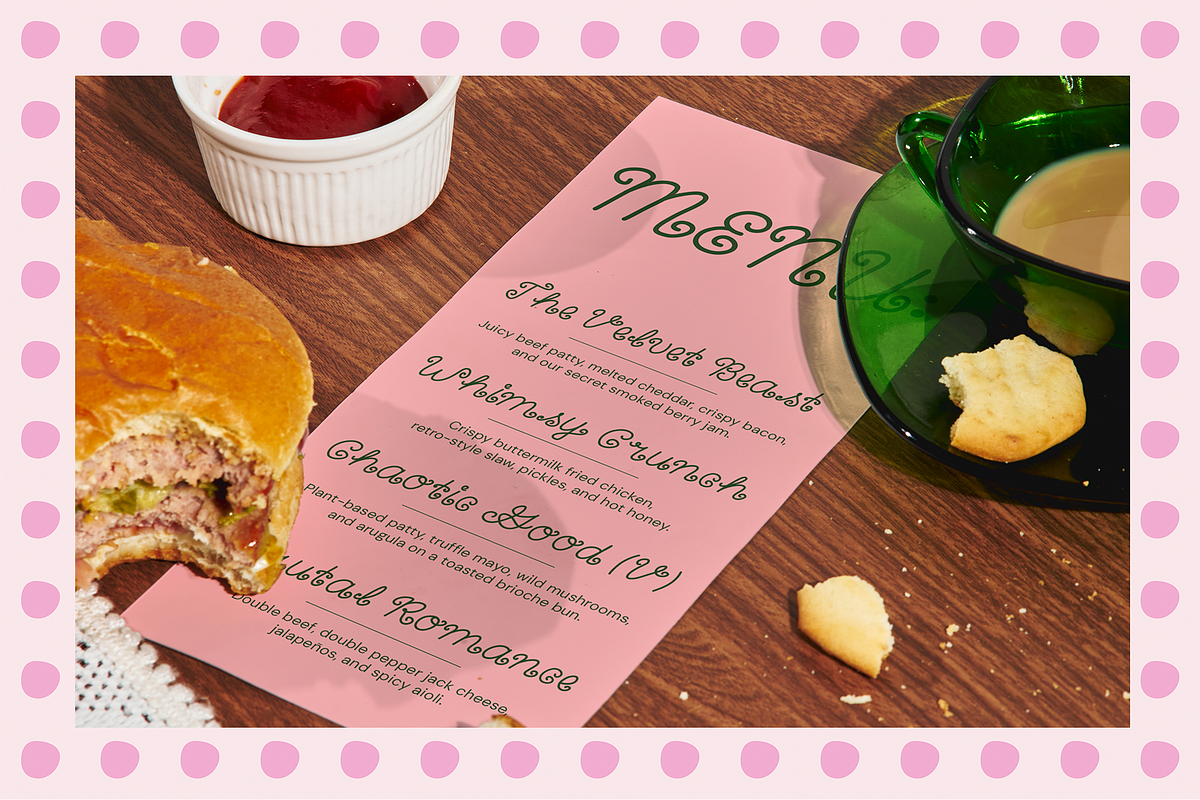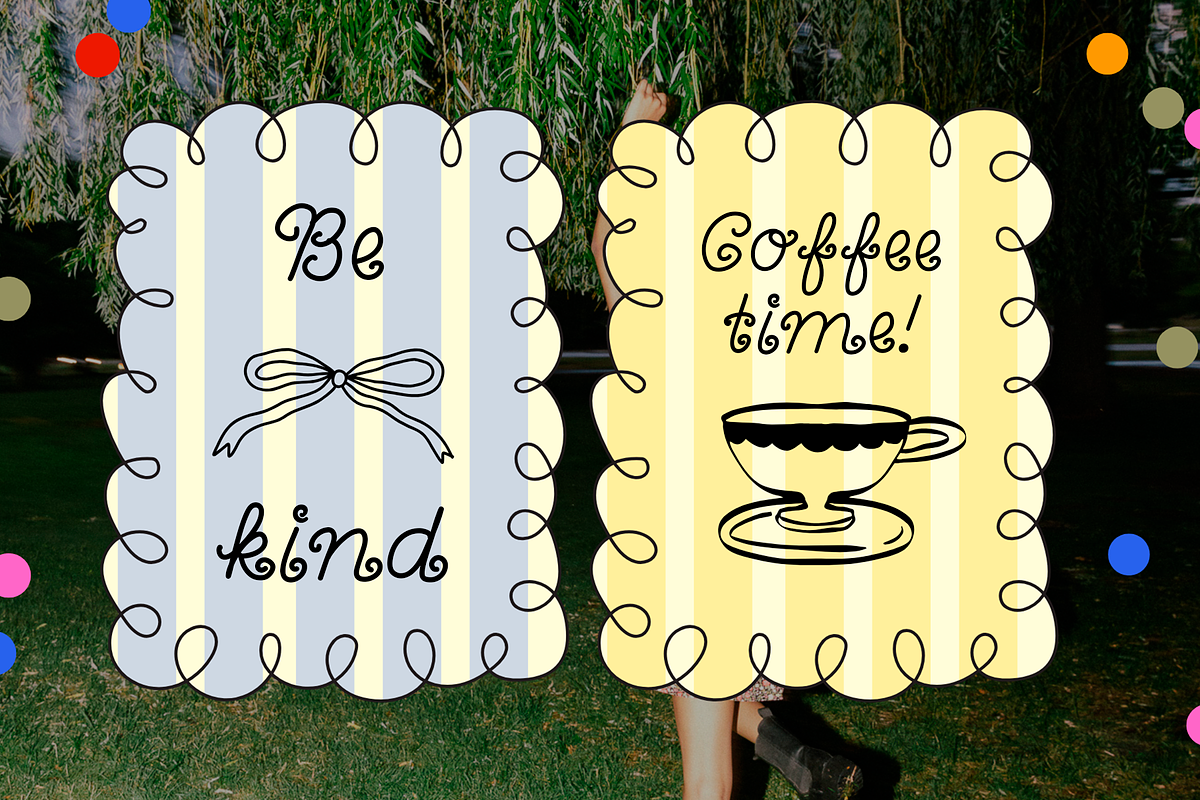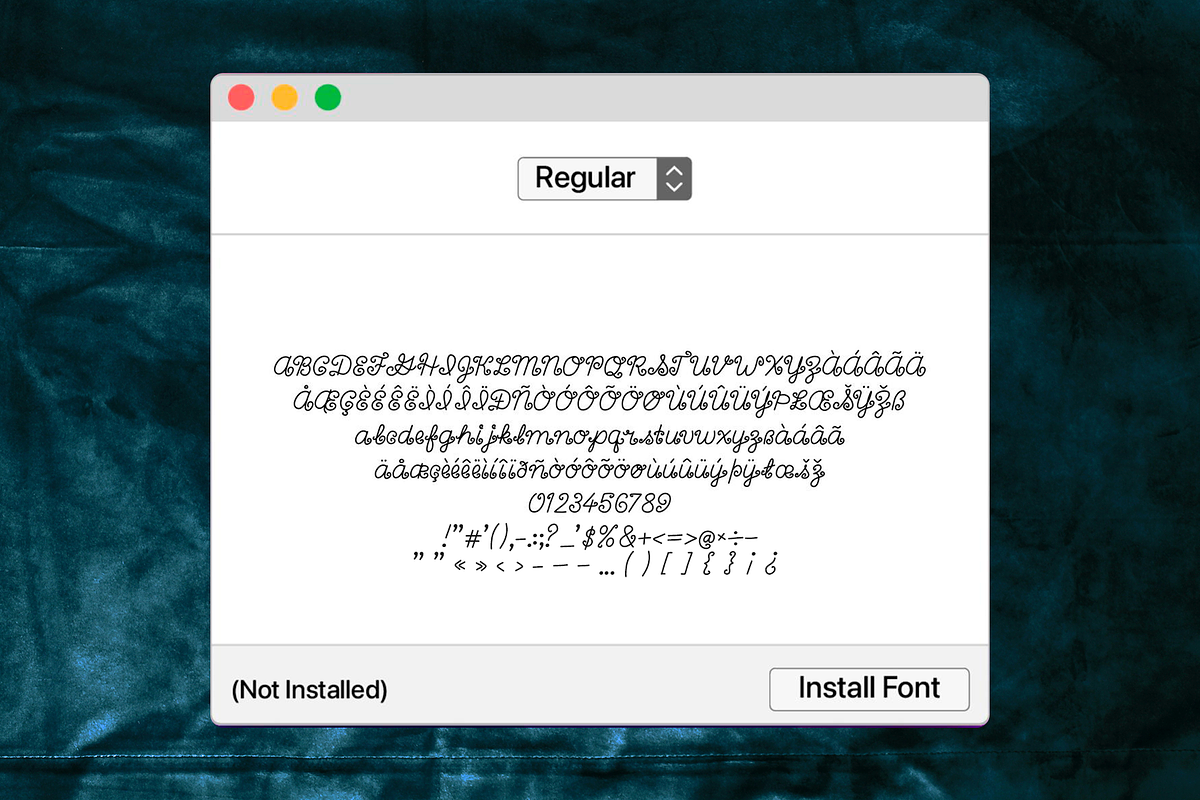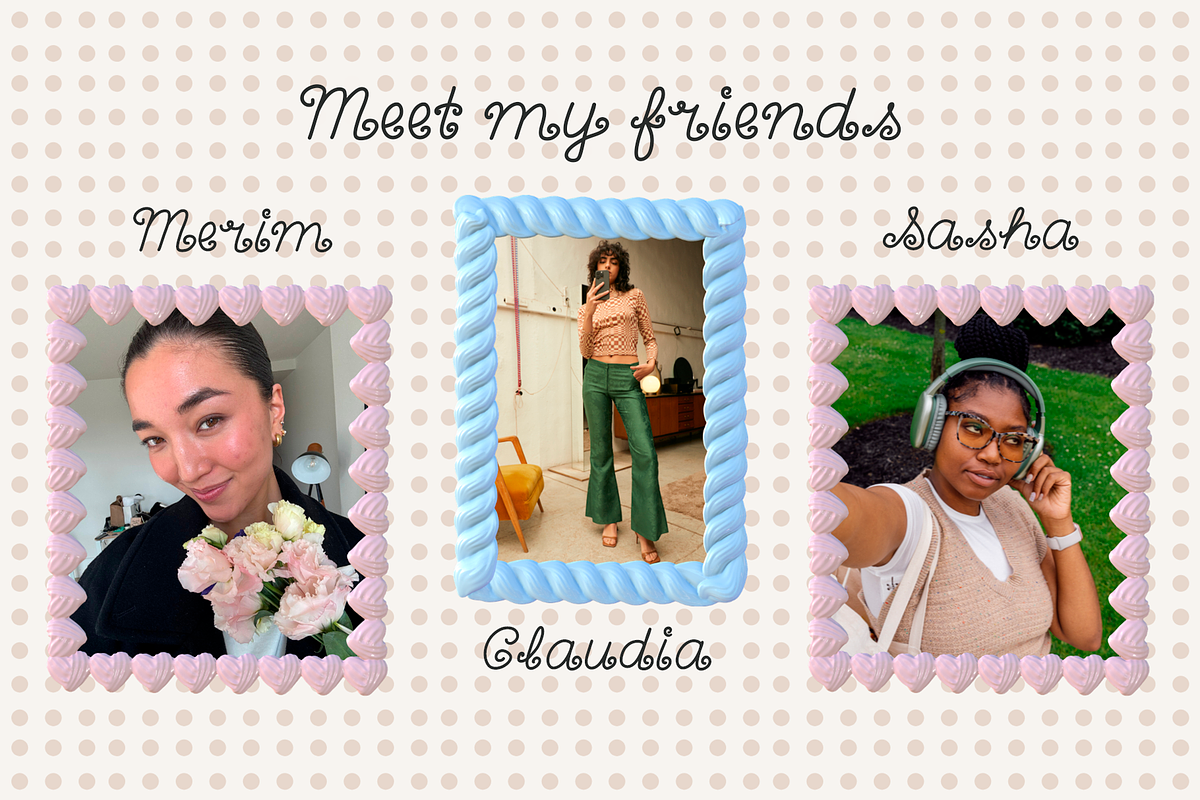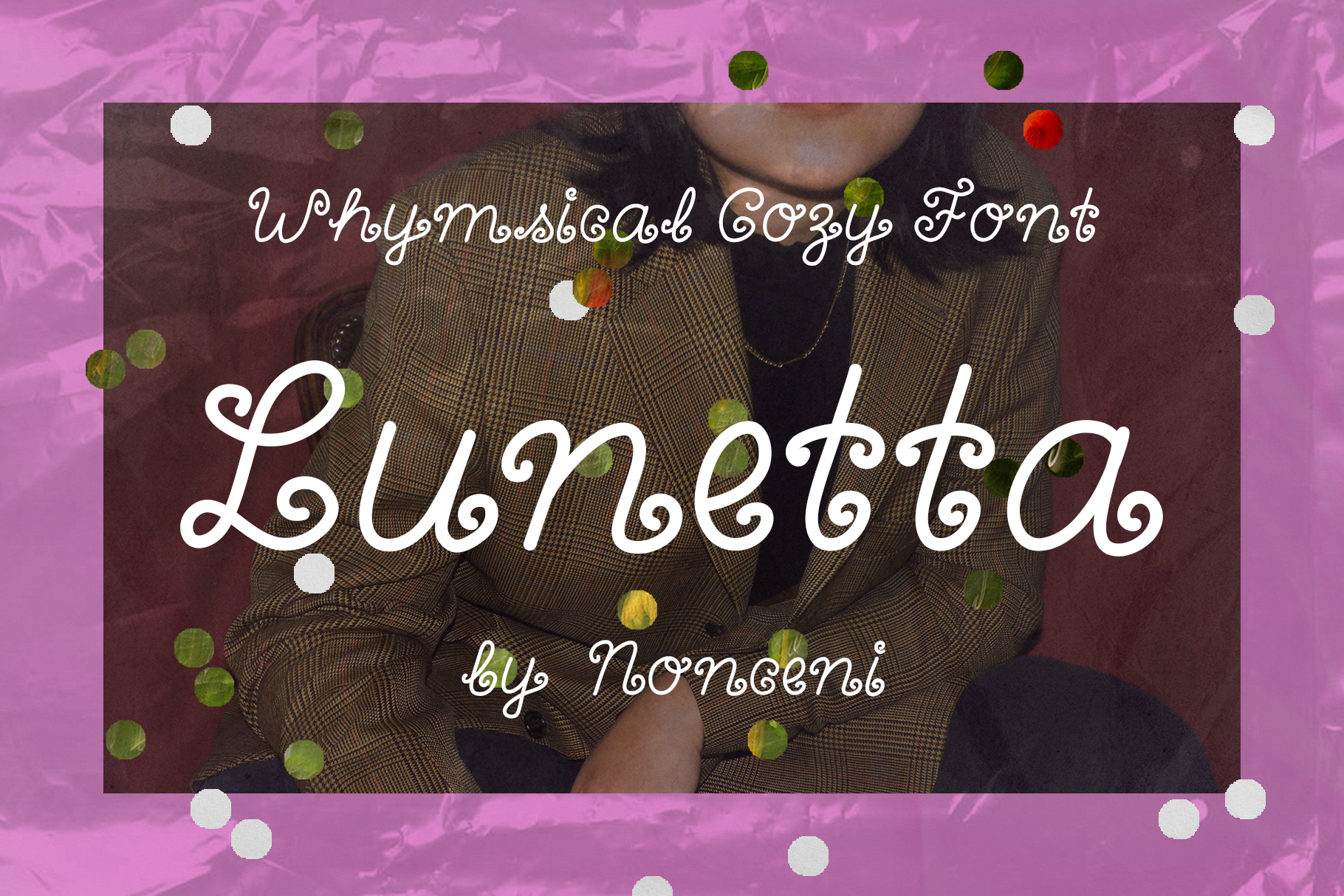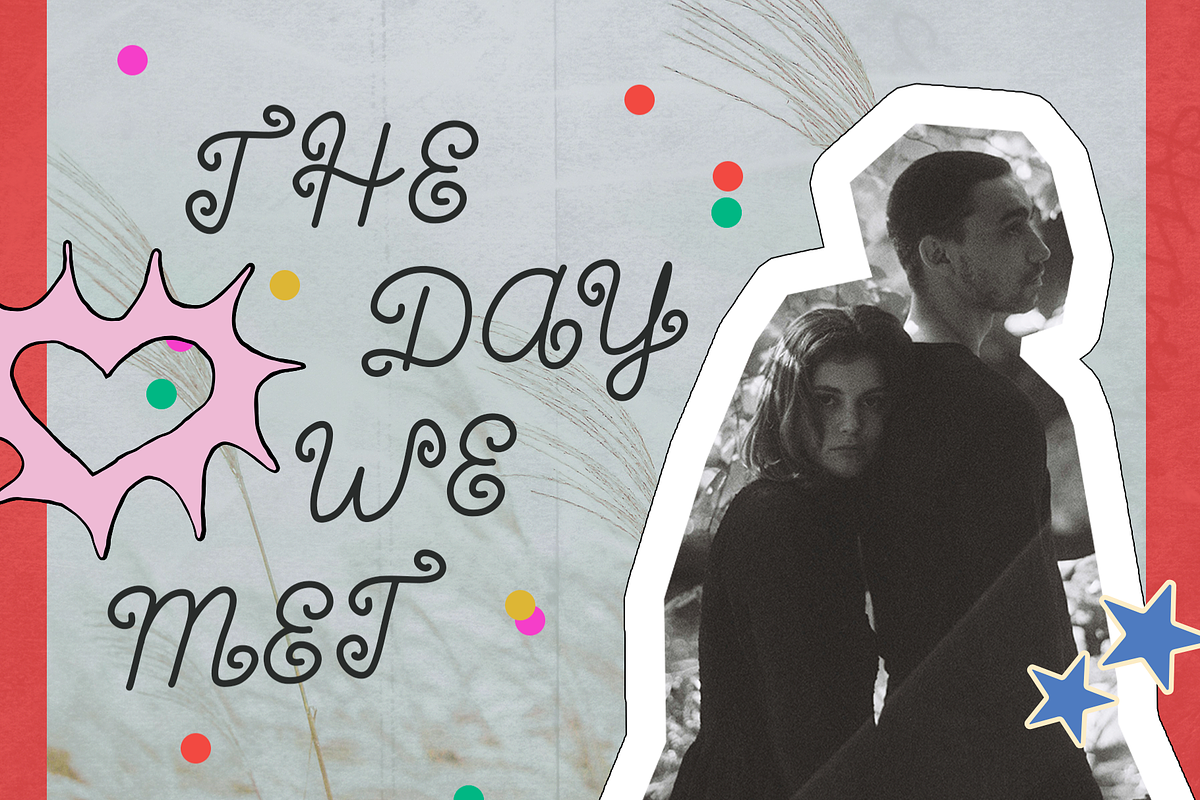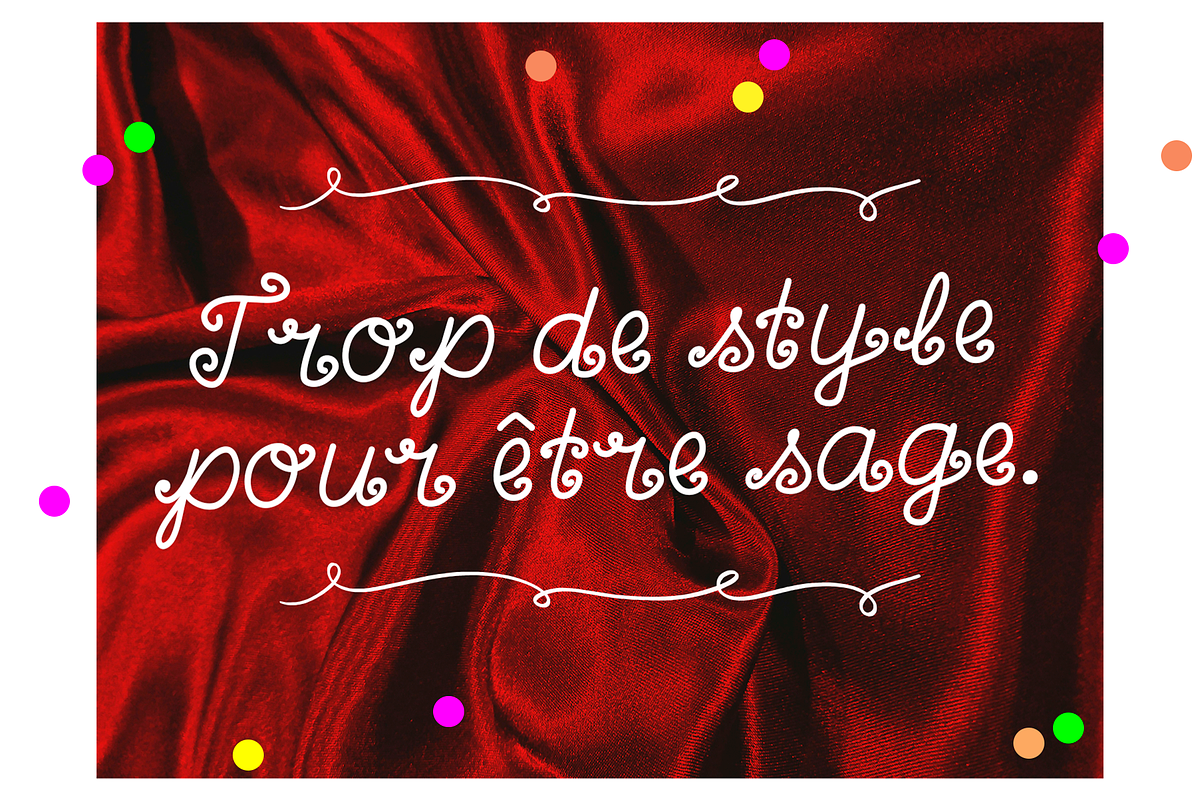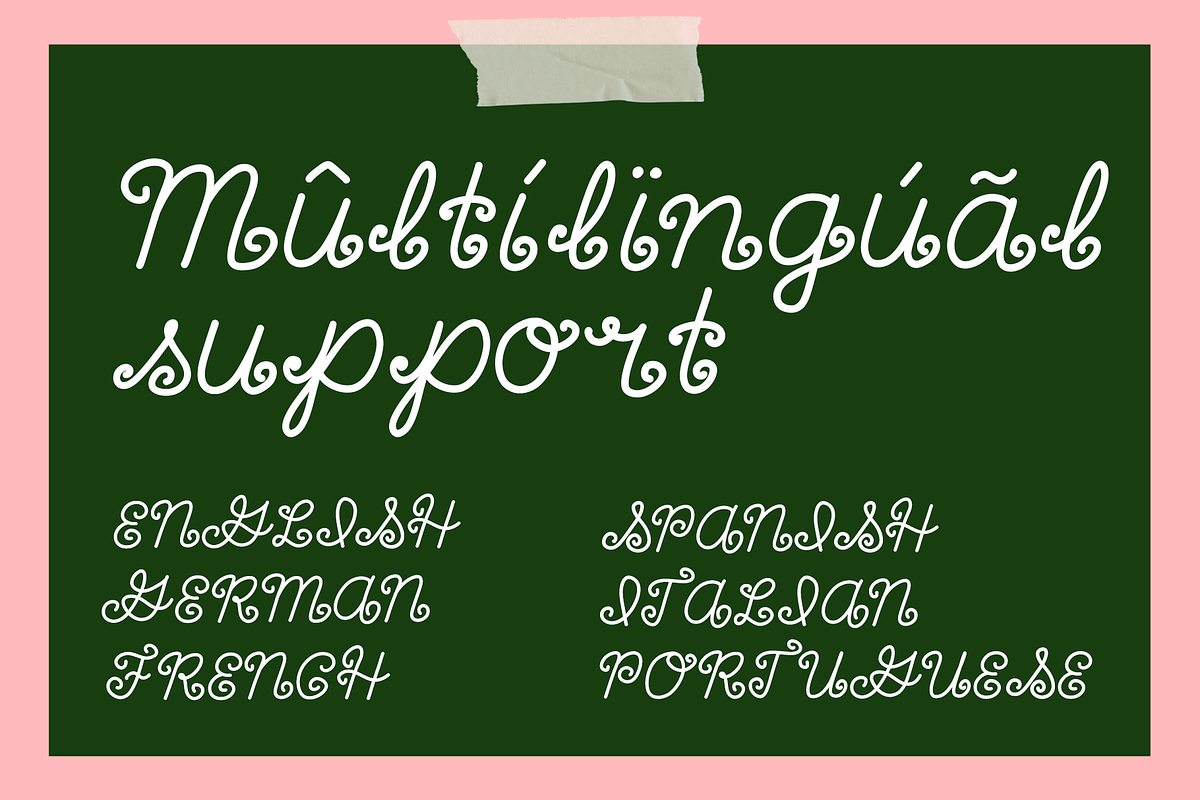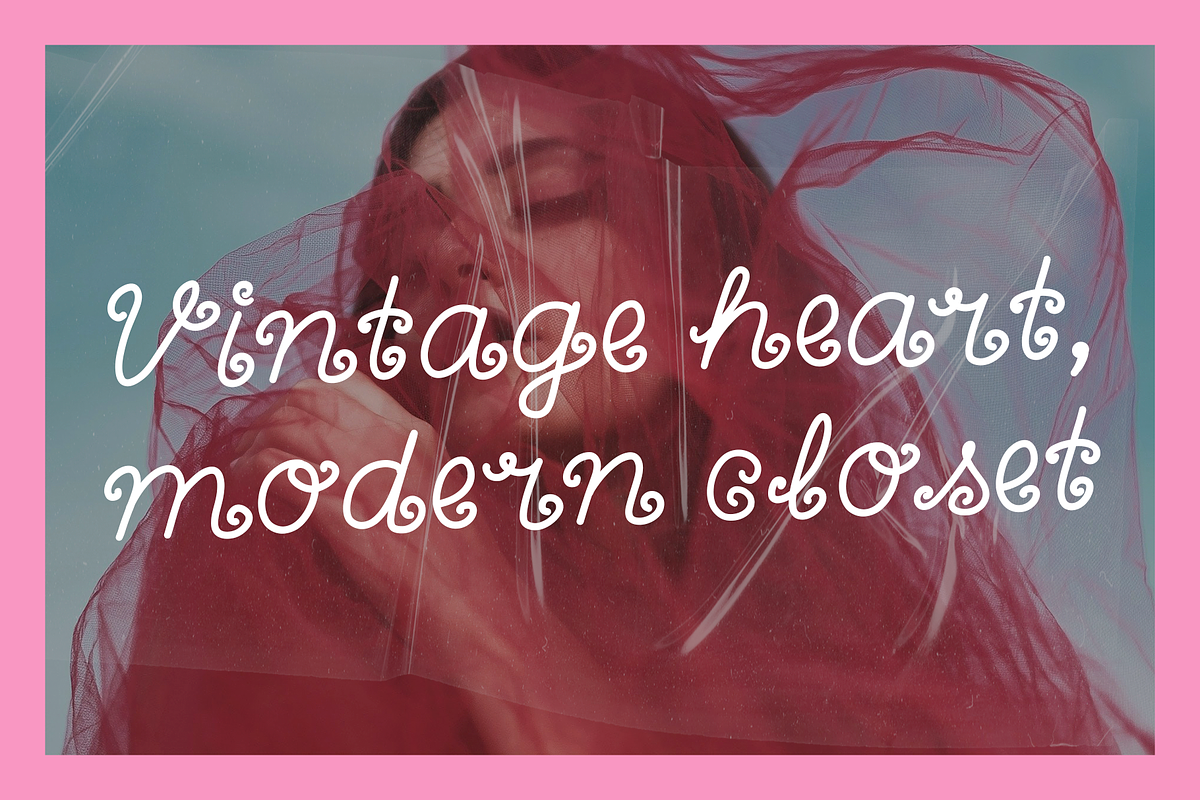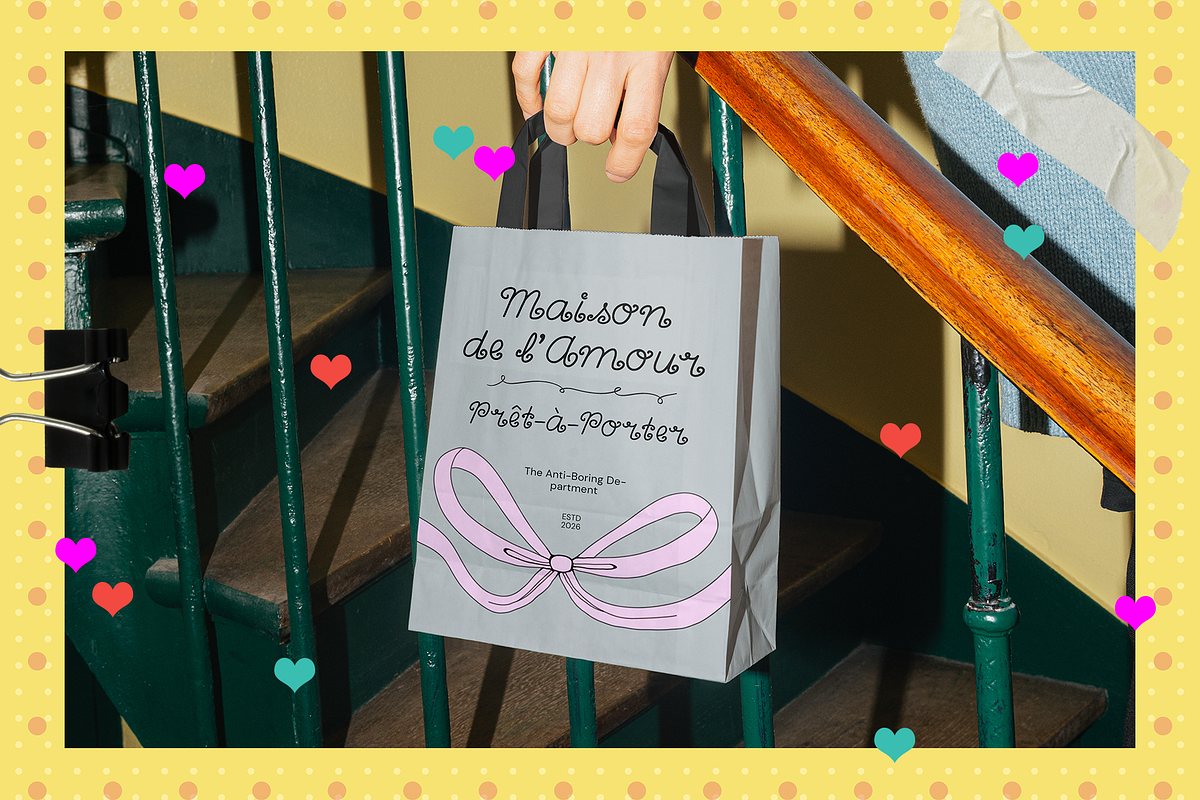
Lunetta Whimsical Swirly Font
Lunetta is a playful display font where vintage romance meets a modern indie edge. Designed with expressive, delicate and trendy swirls.
It’s the perfect match for editorial layouts, zine-style collages, retro packaging, and clothing brands that aren't afraid to be a little delightfully overdressed.
Whimsical Personality: Unique spiral swashes that make every word feel like poetry.
Versatile Vibe: Fits seamlessly into both ultra-feminine "coquette" layouts and edgy, gritty scrapbooked aesthetics.
Full Language Support: Includes a complete set of punctuation and diacritics for English, French, Spanish, German, and more.